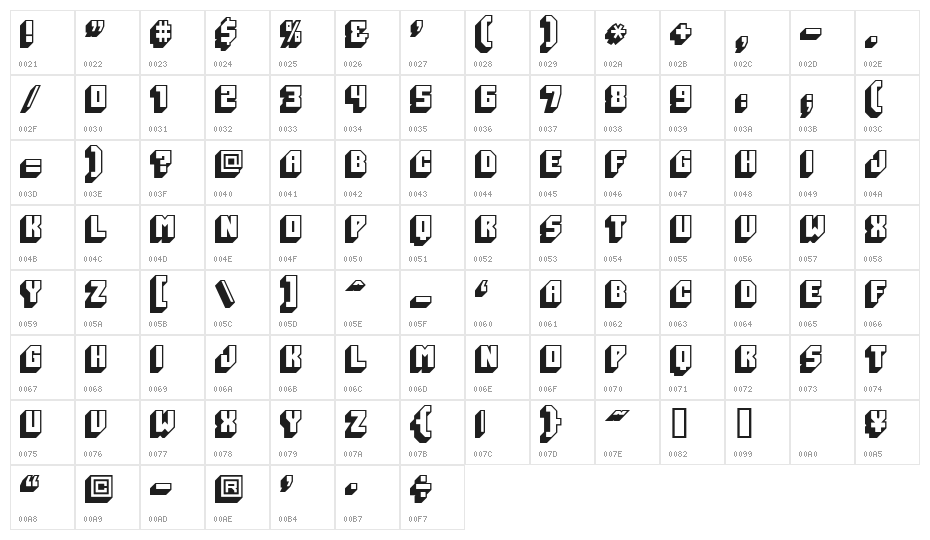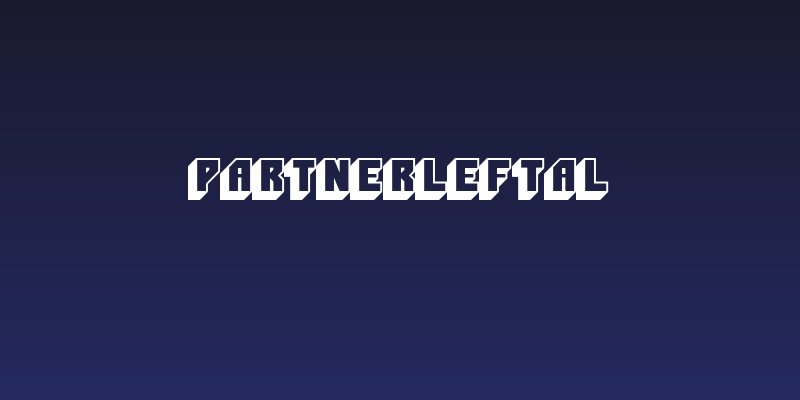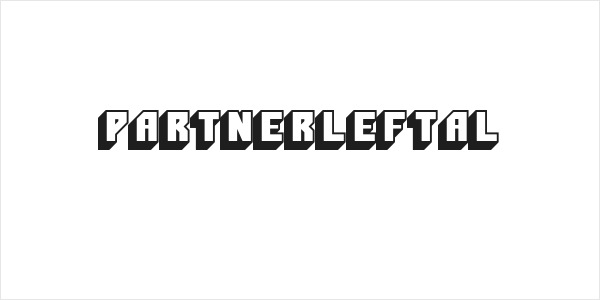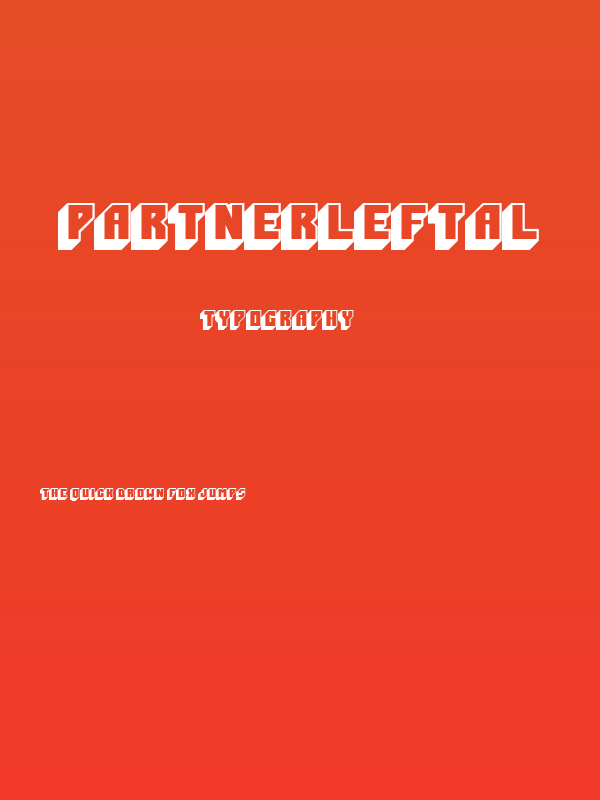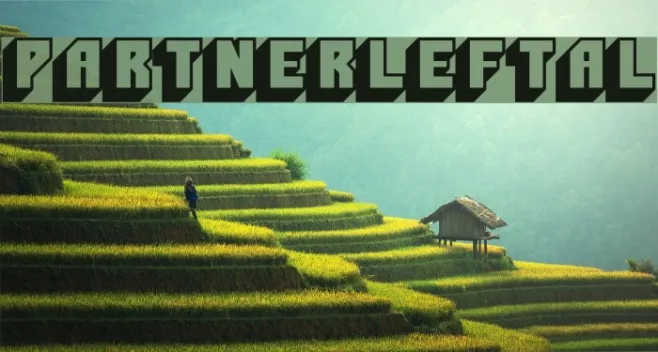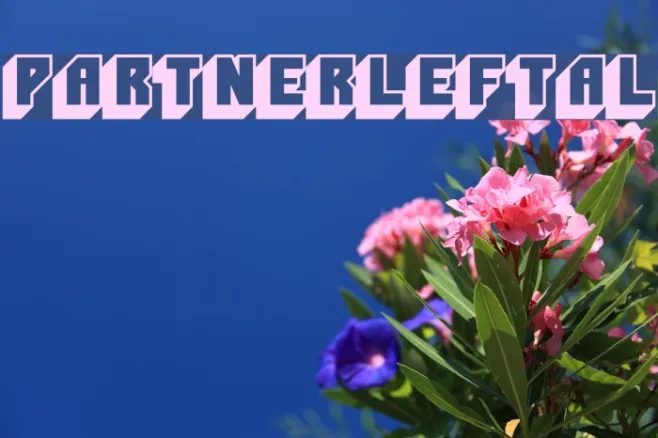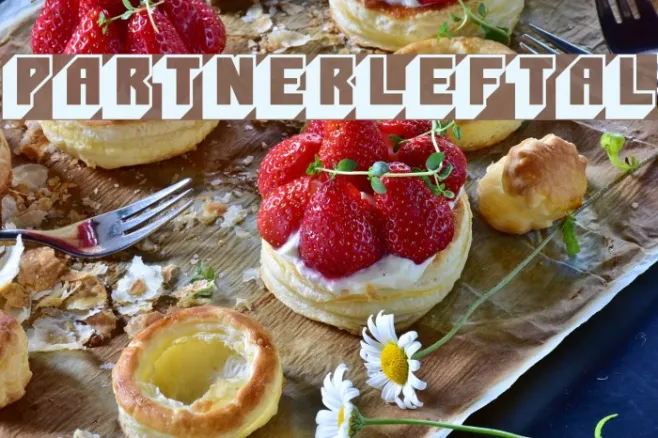
PartnerLeftAL Font
PartnerLeftAL Description
This font features a bold, three-dimensional block style with a strong shadow effect that gives it a striking, impactful appearance. The characters are uppercase and have a geometric, angular design that emphasizes their boldness. The shadowing adds depth and a sense of movement, making the letters appear as if they are popping off the page. This style is reminiscent of retro or vintage designs, often used in contexts that require a strong visual impact. The numbers and special characters follow the same design principles, ensuring consistency across all elements.
| Proposed Projects | Ideal for posters, headlines, logos, and any design requiring a bold, eye-catching typeface. |